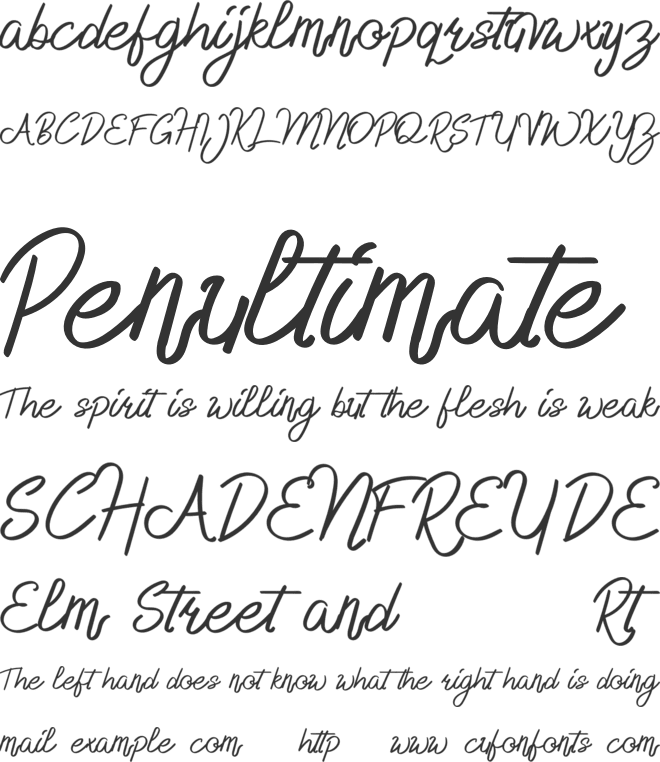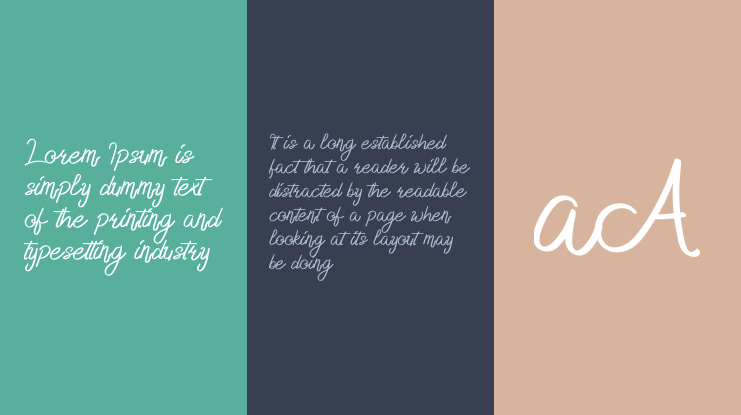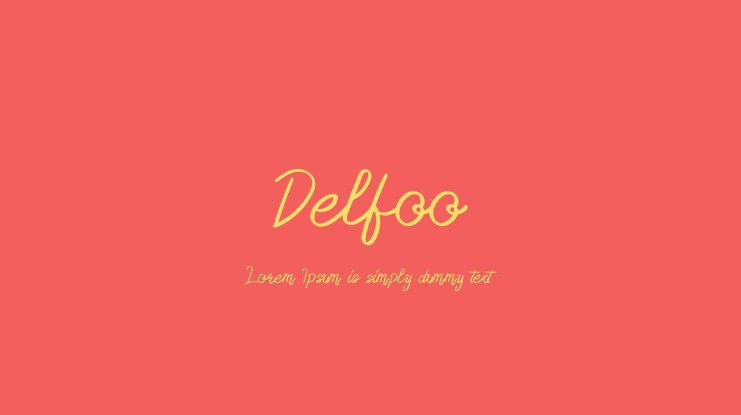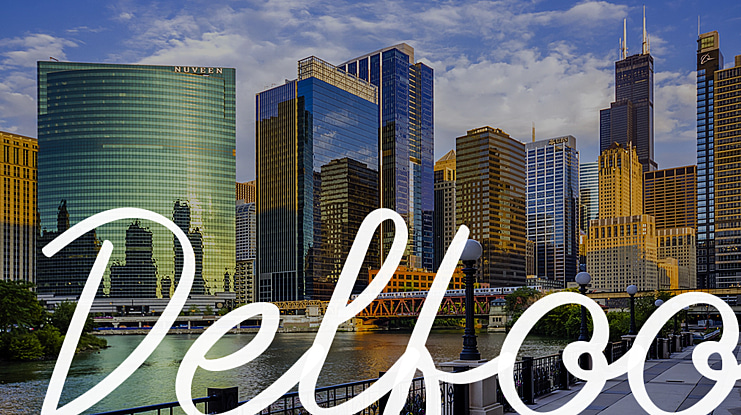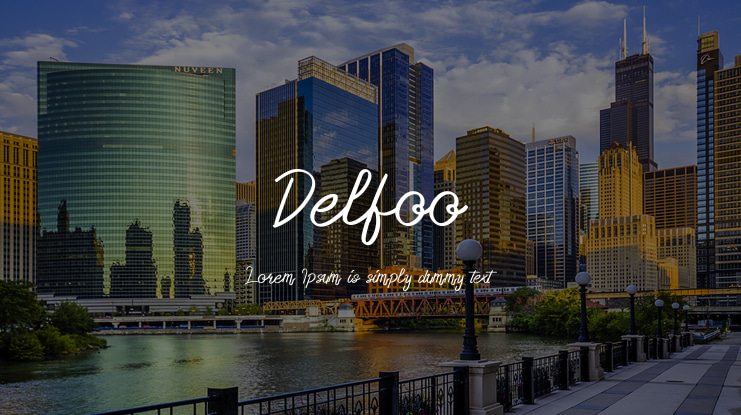
Delfoo Font
Introducing the Delfoo, a stylish handwritten with script style. This beautiful script font offers your personal touch to your latest art project with fresh, elegant and delicious look.
Delfoo offers beautuful typographic will perfect for many different project such as logo, branding, invitation, flyer, posters, social media posts, advertisements, product packaging, product designs, label, photography, special events or anything that need handwriting script taste.